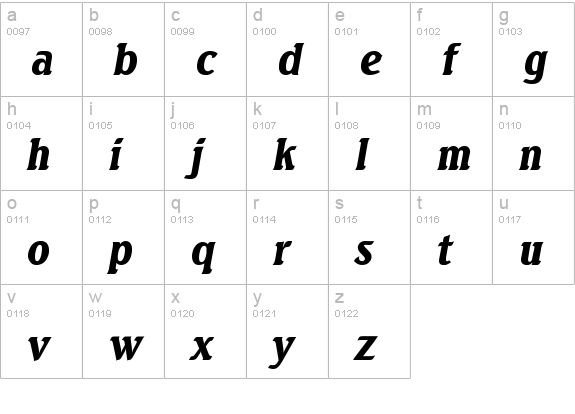
SeasonalBlackIt Font Details
Introducing SeasonalBlackIt, a visually striking and versatile font that encapsulates the essence of the seasons with its bold and captivating design. This font is designed to evoke a sense of elegance and sophistication, making it the perfect choice for a wide range of creative projects. SeasonalBlackIt is not only visually appealing but also highly functional, with its clean lines and carefully crafted letterforms. Its bold and distinct characteristics make it ideal for headlines, logos, branding, and any design project that requires a touch of sophistication. What sets SeasonalBlackIt apart is its ability to seamlessly adapt to the changing seasons. Whether you want to capture the warmth and vibrancy of summer, the crispness of autumn, the coziness of winter, or the freshness of spring, this font effortlessly brings your designs to life. And the best part? SeasonalBlackIt is available for free! That's right, you can download this incredible font at no cost from FontsMarket.com. With its stunning aesthetics and affordability, SeasonalBlackIt is a must-have for any designer, creative professional, or typography enthusiast. So why wait? Embrace the beauty of the seasons and elevate your designs with SeasonalBlackIt. Download this remarkable font for free today and let your creativity flourish like never before.